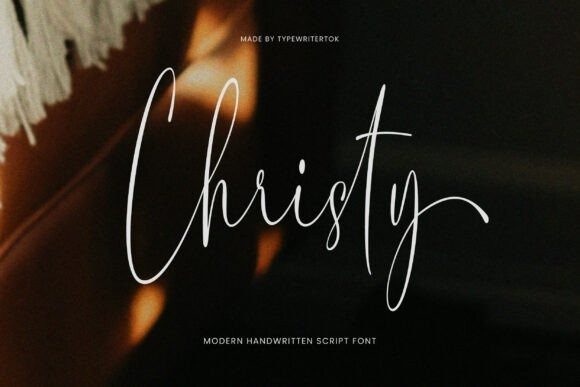
Christy Script Font
Christy Script Font is a script handwritten font that embodies elegance and warmth. With its smooth curves and natural flow, this font is perfect for branding, wedding invitations, greeting cards, logos, social media posts, and packaging design. Its charming and personal touch makes it ideal for projects that require a delicate yet stylish handwritten feel.